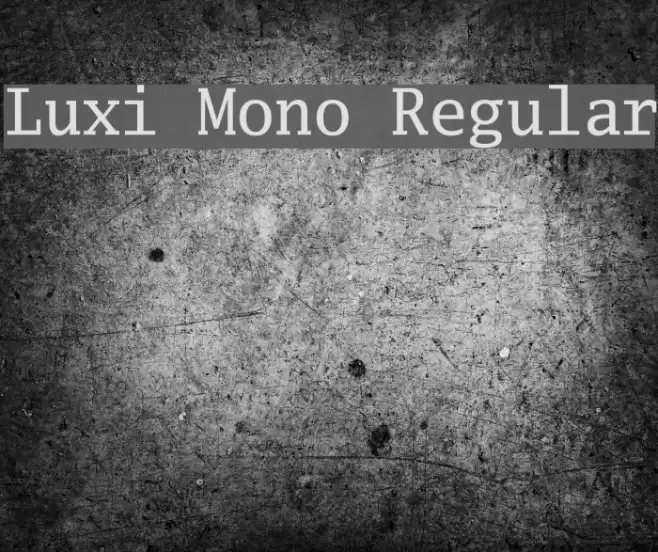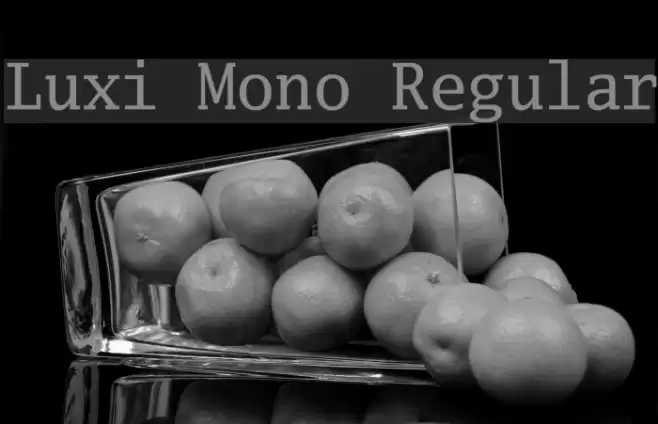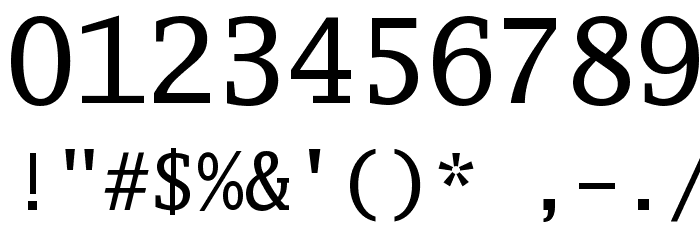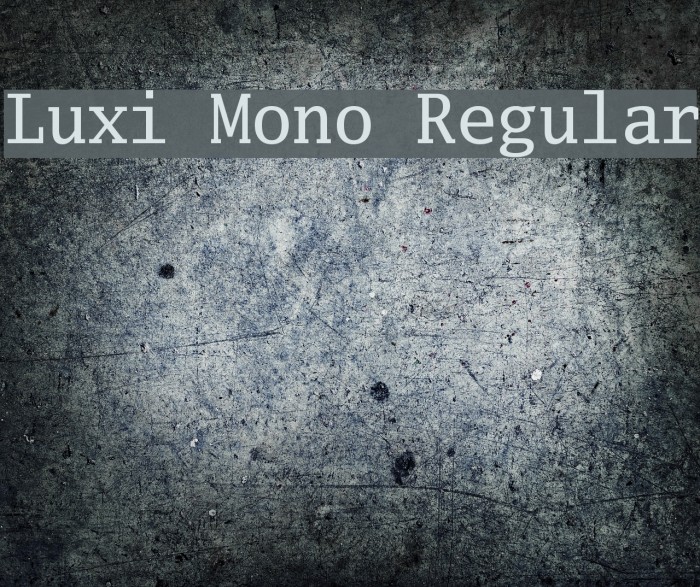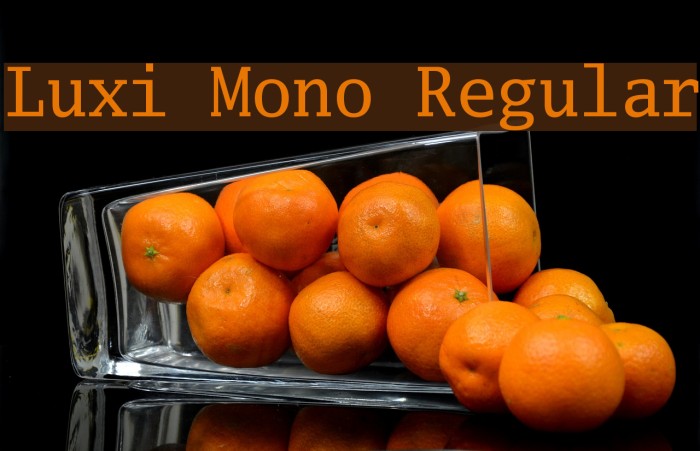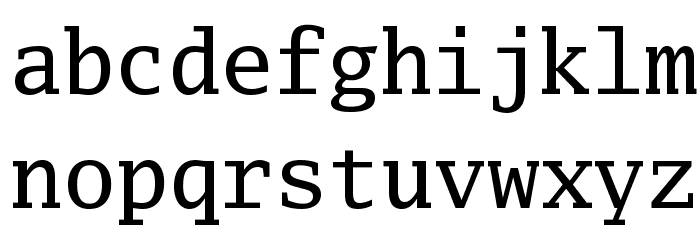
Luxi Mono Regular Font
Luxi Mono Regular Description
This font is a monospaced typeface characterized by its uniform character width, making it ideal for coding and tabular data. The design is clean and straightforward, with a slight serif that adds a touch of elegance without compromising readability. The uppercase letters are bold and well-defined, while the lowercase letters maintain a consistent height, ensuring clarity across different sizes. Numbers are distinct and easy to differentiate, which is crucial for data-heavy applications. The special characters are well-proportioned, maintaining the overall balance of the font. Its simplicity and precision make it a versatile choice for both digital and print media.
A clean, monospaced serif font ideal for coding and tabular data from Uncategorized fonts.
- Proposed Projects: Ideal for coding environments, technical documentation, data tables, and any project requiring precise alignment.
- Use Case: Coding, Technical documentation, Data tables